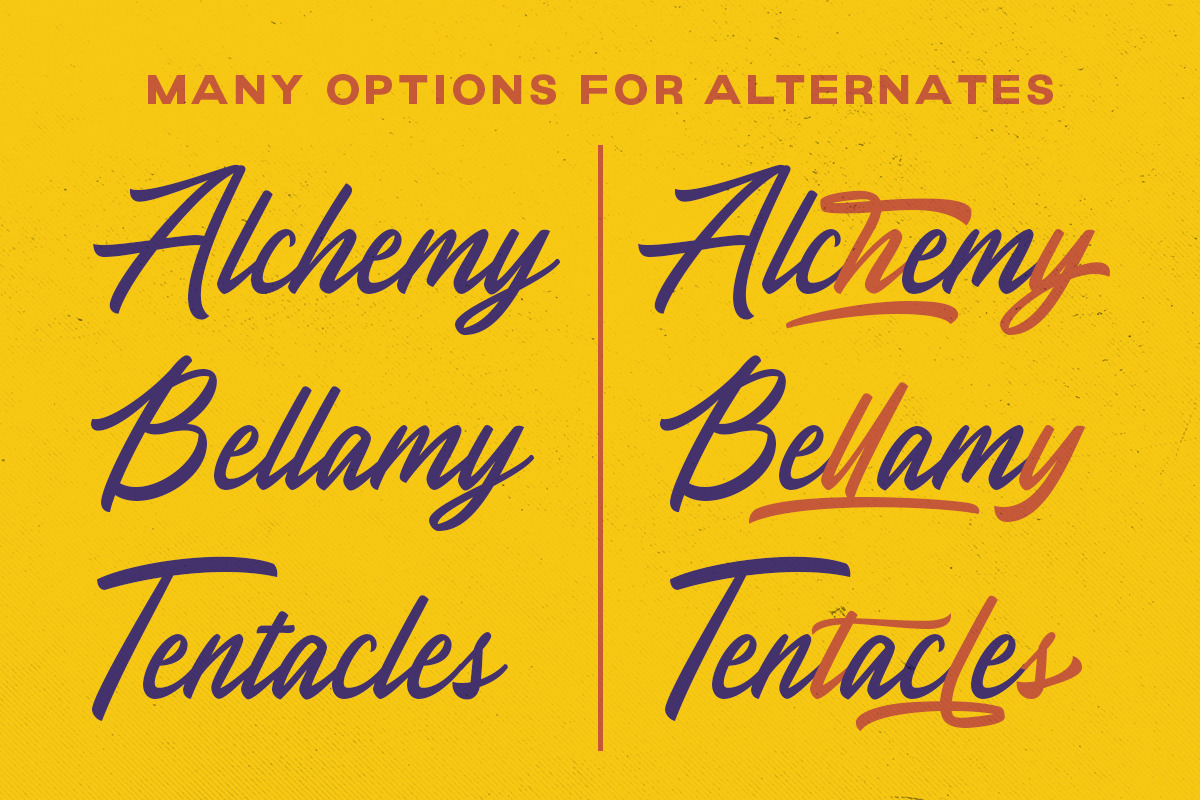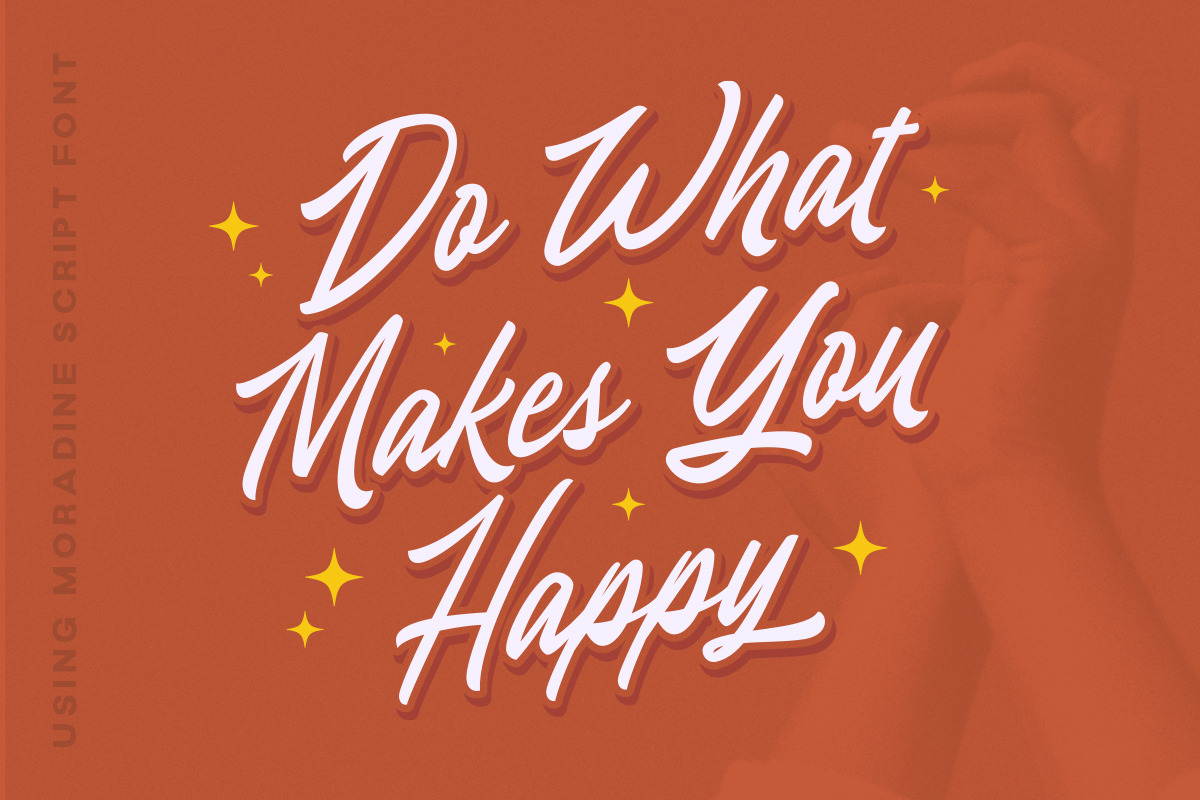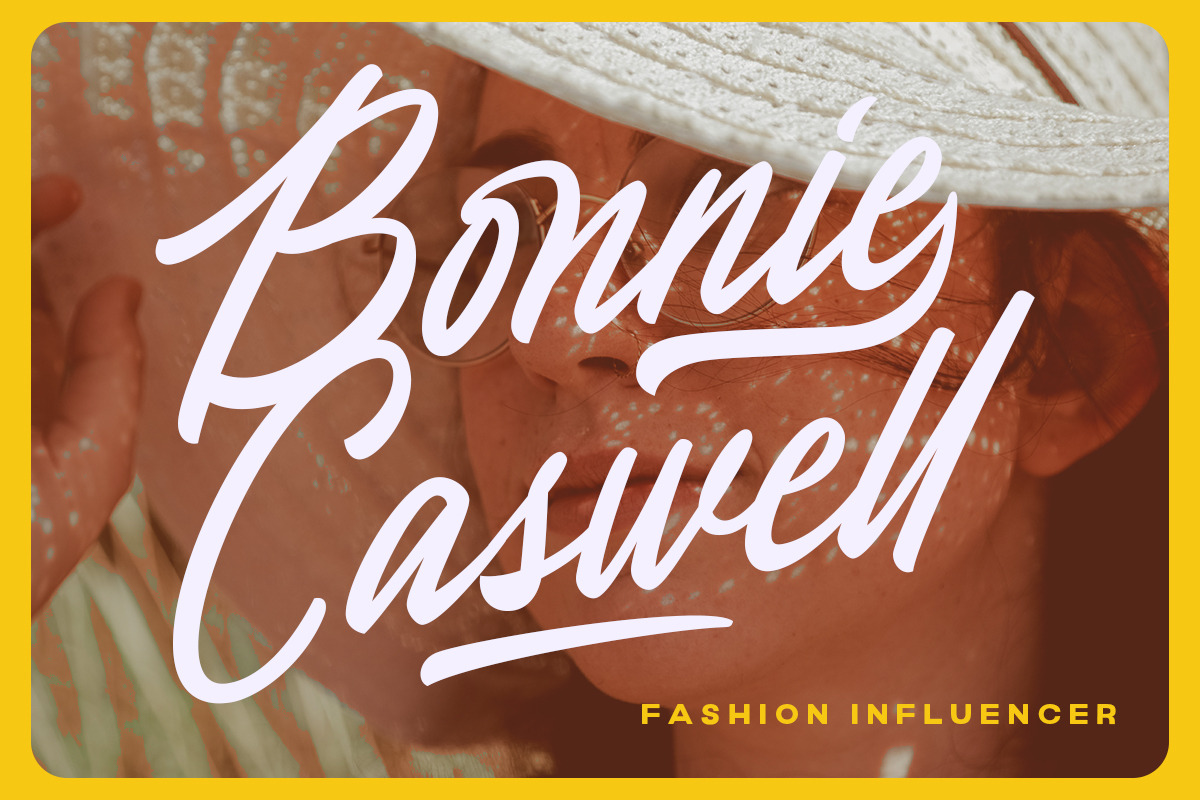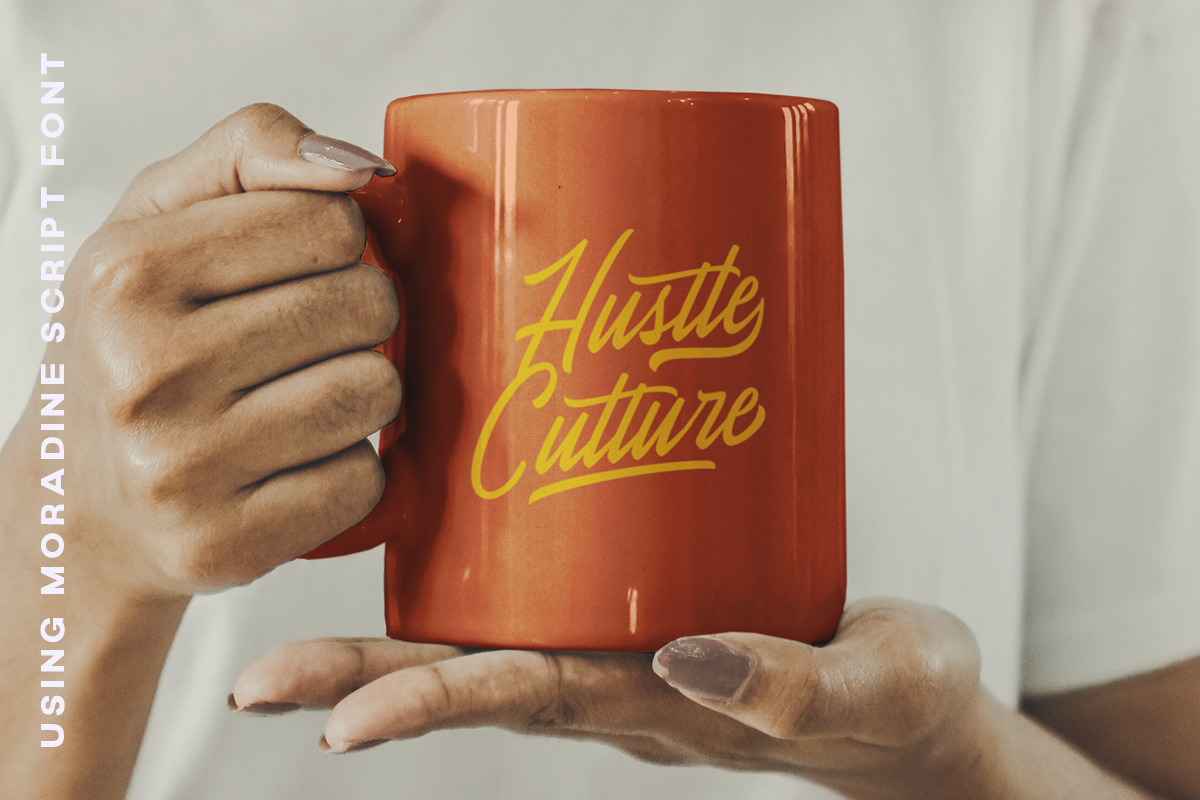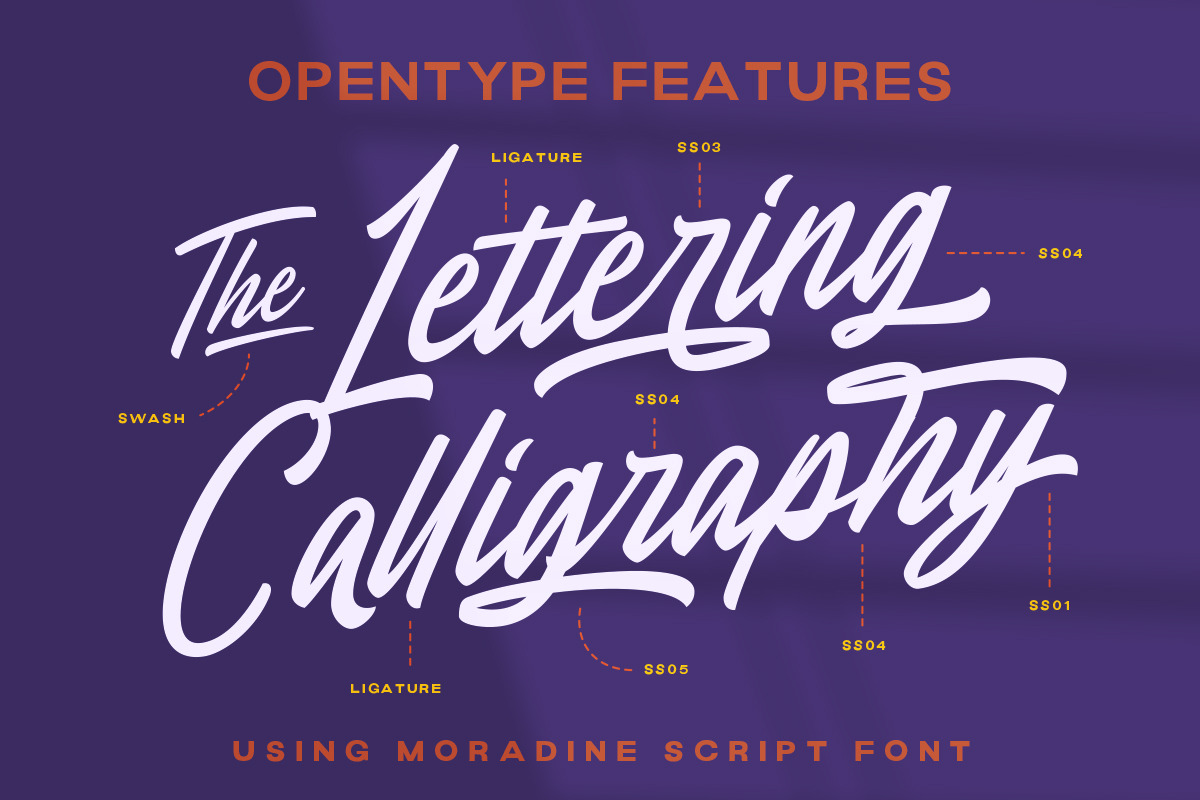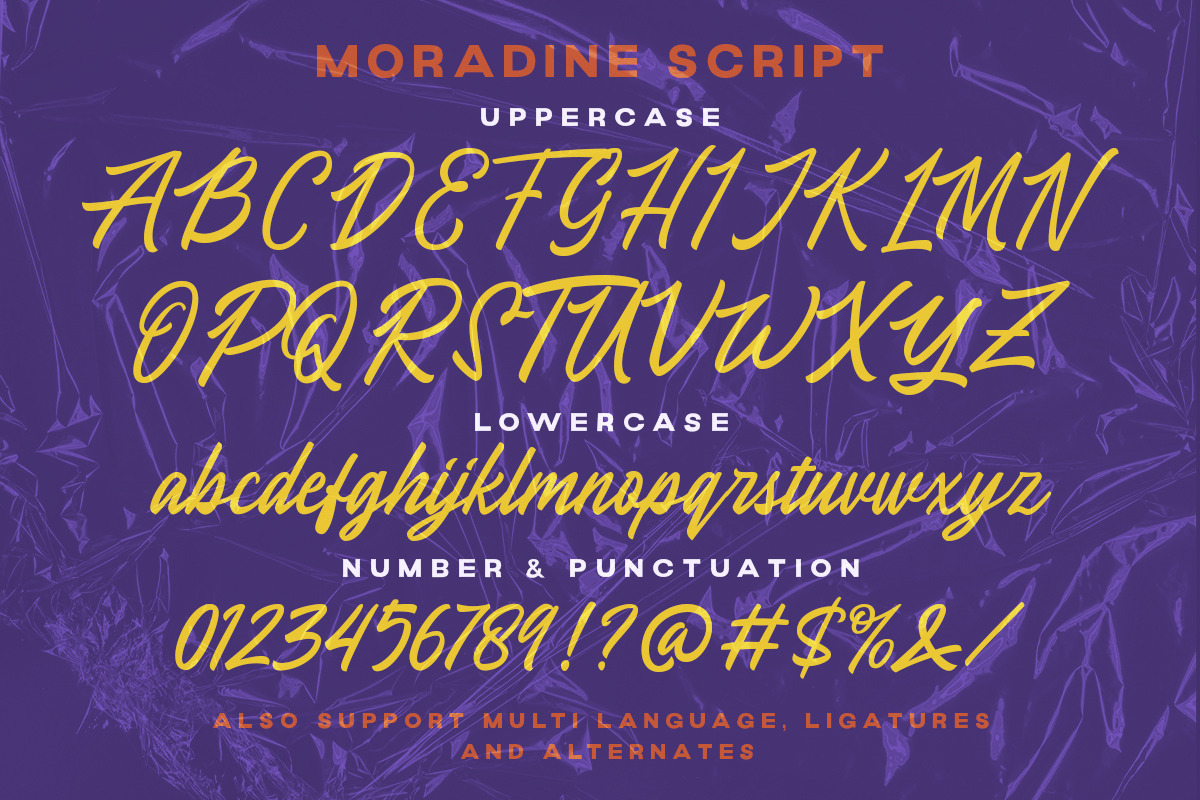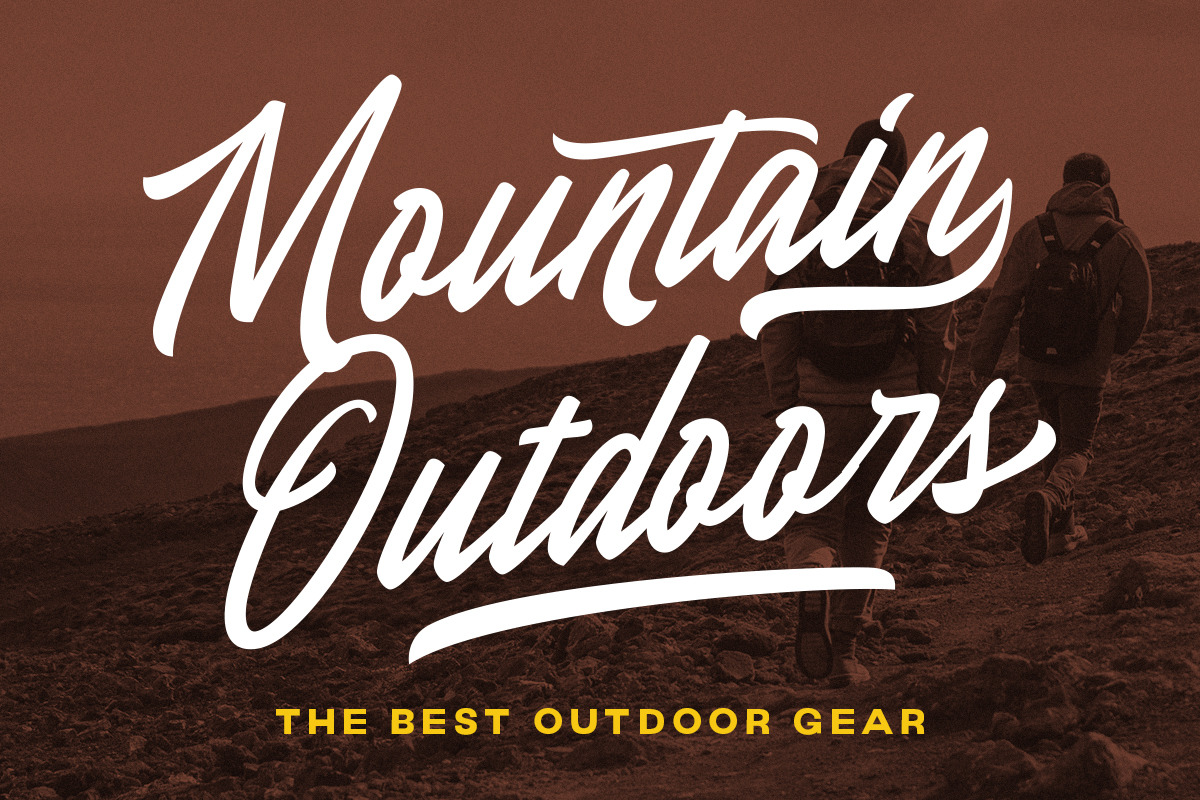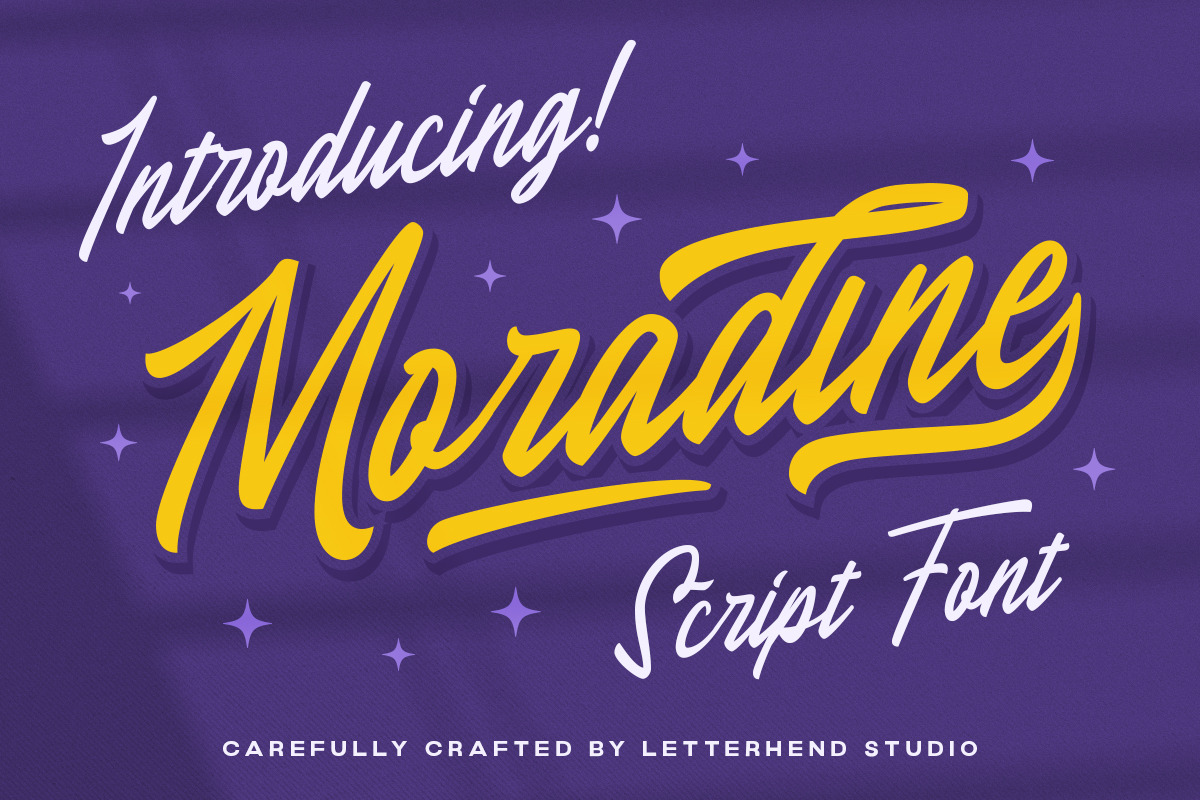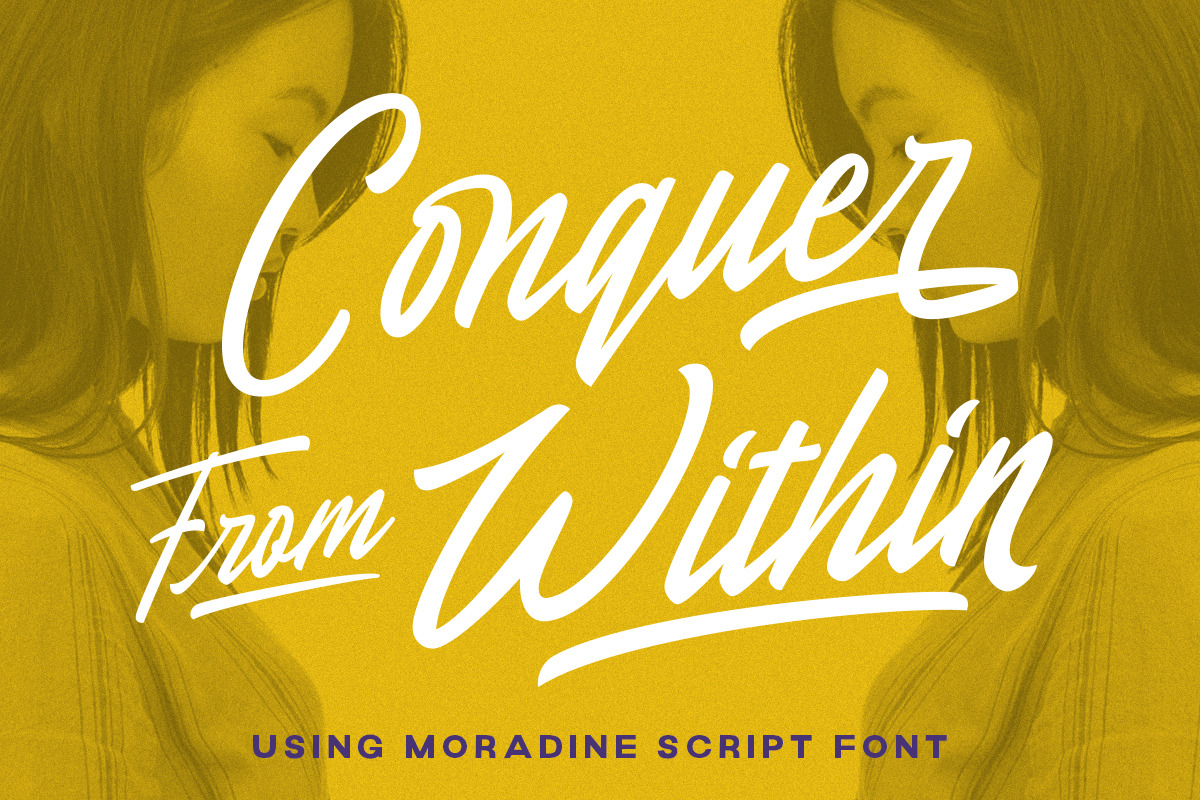
Moradine - Script Font
Introducing Moradine, a script font perfect for designers looking for a modern and casual style. With its clean lines and flowing curves, this font is ideal for adding an interesting touch to your designs,especially in logo, and the other various formal forms such as invitations, labels, logos, magazines, books, greeting / wedding cards, packaging, fashion, make up, stationery, novels, labels or any type of advertising purpose.